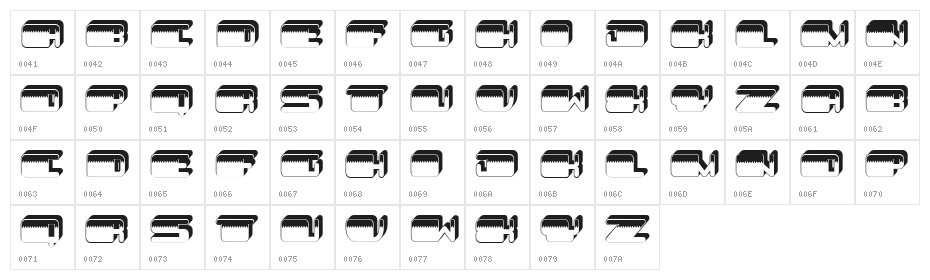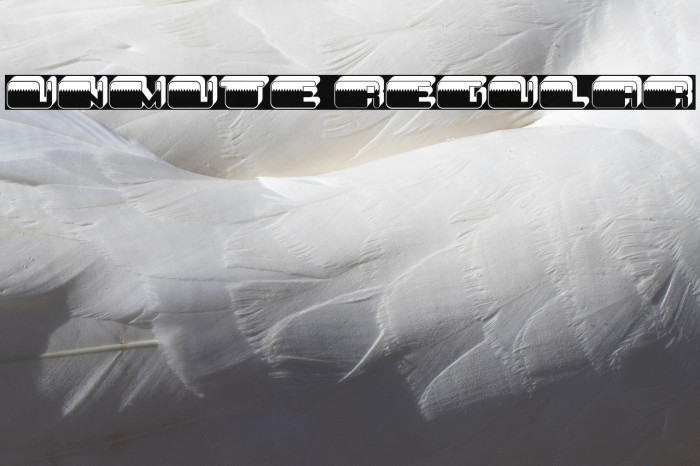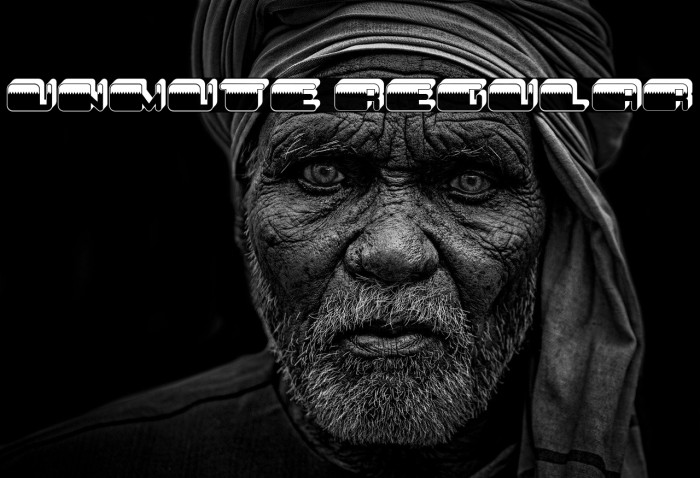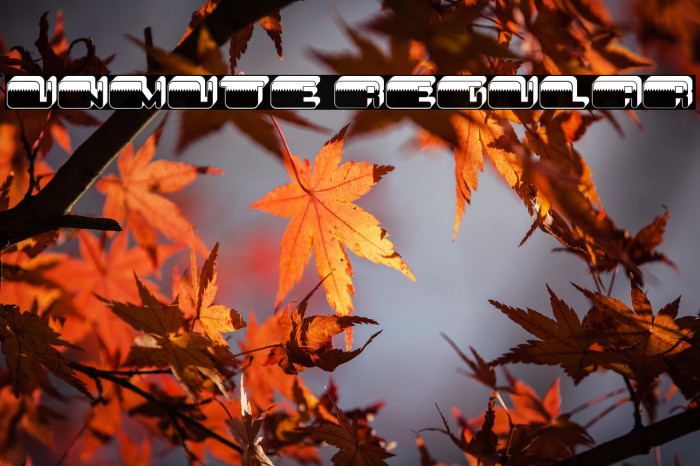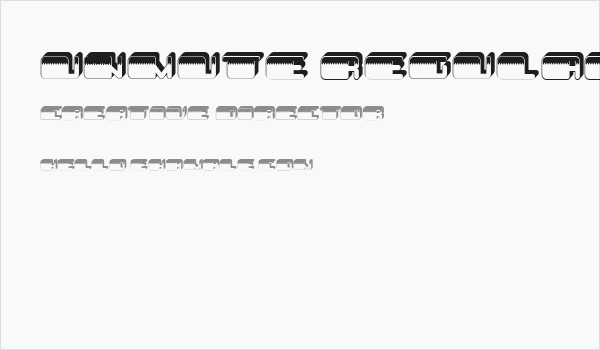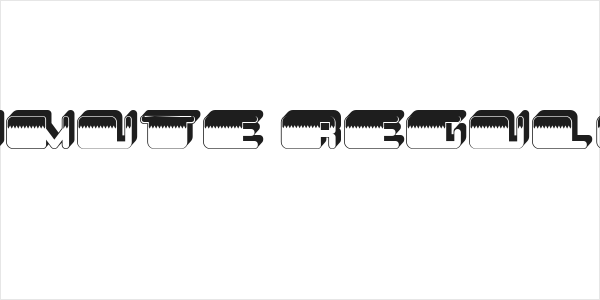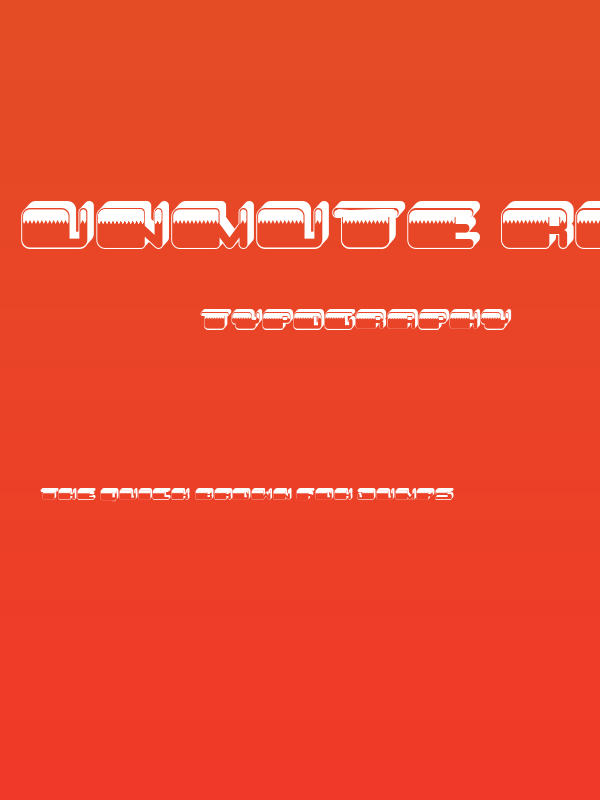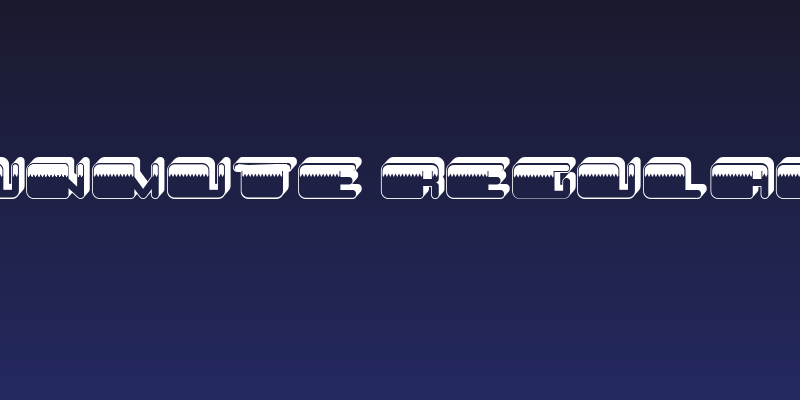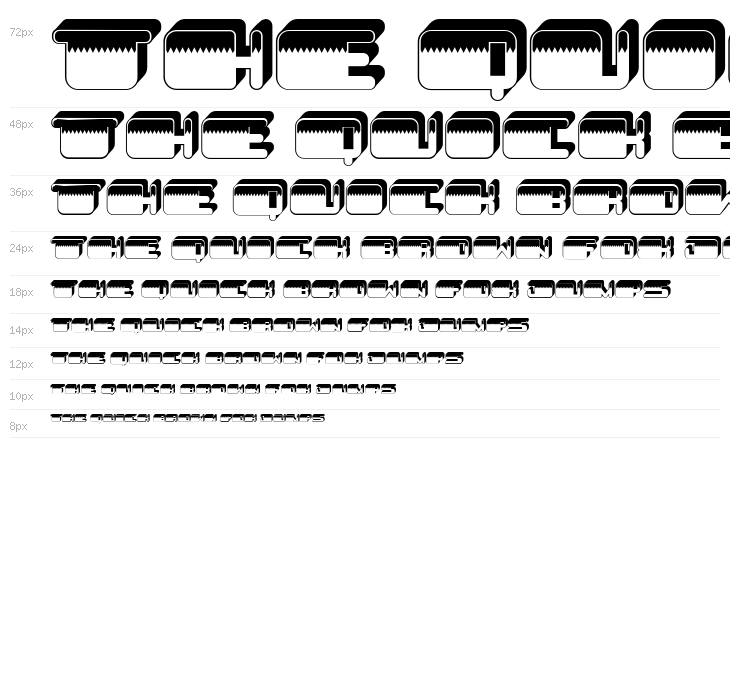
Unmute Regular Font
Unmute Regular Description
This font features a bold and futuristic design with a unique combination of geometric shapes and sharp edges. The characters are constructed with a distinct stencil-like appearance, giving them a modern and industrial feel. The use of negative space within the letters adds an intriguing visual element, making it stand out in any design. The font maintains a consistent weight throughout, providing a uniform look across all characters. Its boldness and distinct style make it suitable for attention-grabbing headlines and creative projects.
| Proposed Projects | Ideal for sci-fi themed designs, technology branding, posters, and modern art projects. |